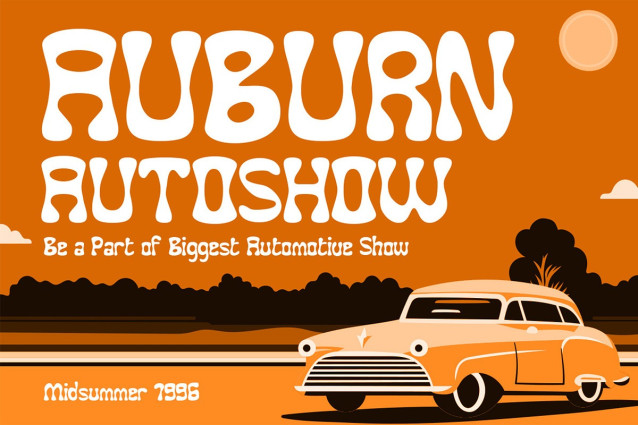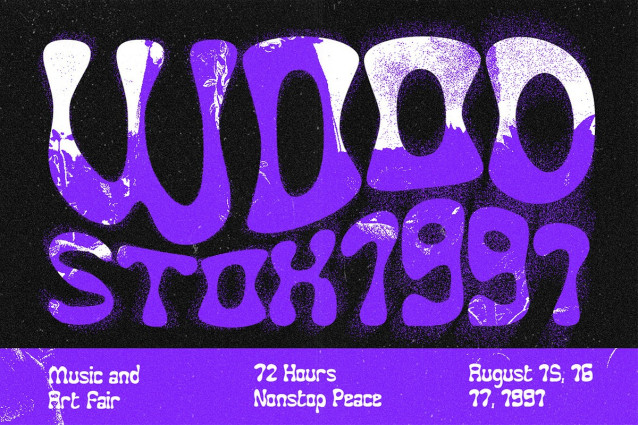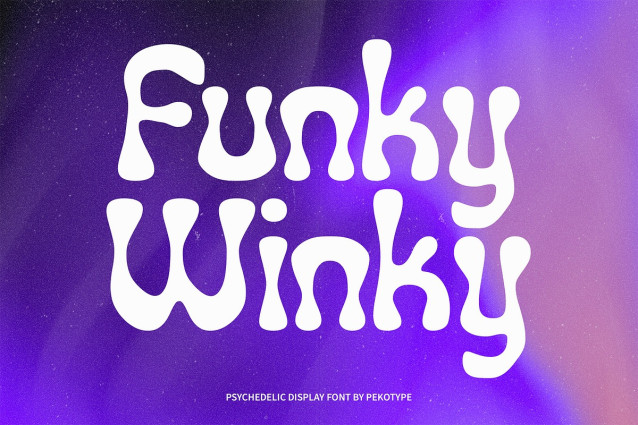
Funky Winky Font
Funky Winky Font, a psychedelic display font that’s funky, unique, and irresistibly groovy. With its slightly condensed letterforms and playful flow, this font is designed to capture attention and bring instant character to your designs.
Funky Winky is perfect for branding, logos, posters, music events, social media graphics, merchandise, and promotional campaigns. Its funk-inspired shapes and trippy vibes make it ideal for projects that need a bold, eye-catching statement. Whether you’re channeling the psychedelic 70s aesthetic or creating fresh, modern visuals, this font delivers both style and personality.